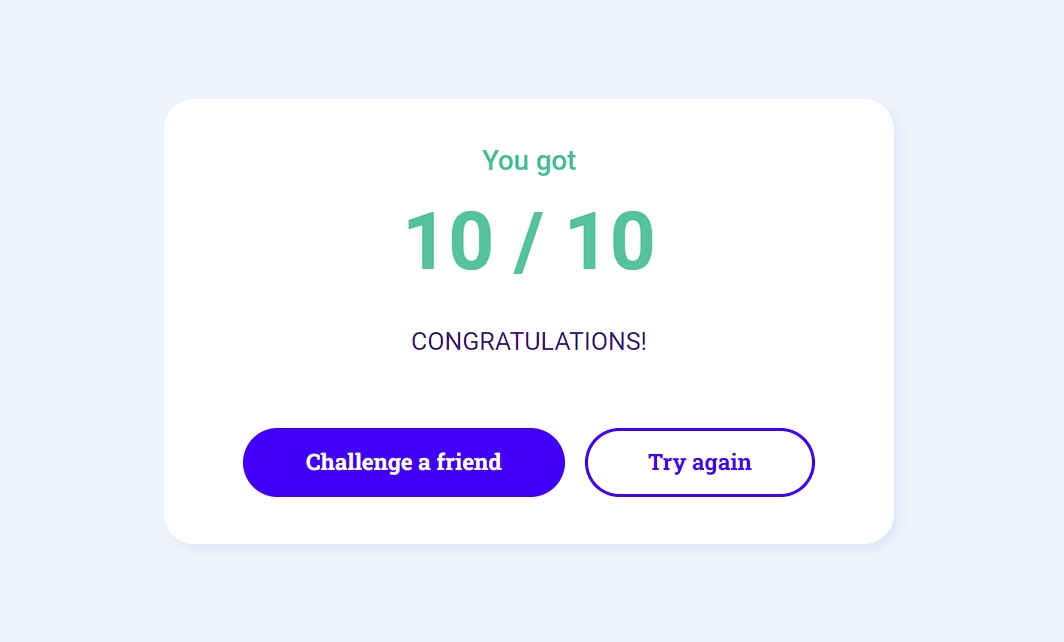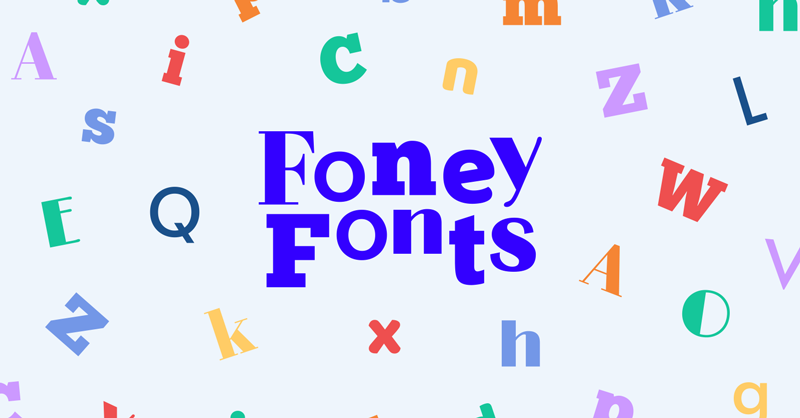
That’s a good game, but I’ve never heard of some of the products or brands. This left me with nothing but guesses as to which logos were correct.
I did notice some of the incorrect choices used better typography than the real ones, which made me smile. ![]()
My best was 7 of 10 so far. But, there are a lot I have no idea what they are in the first place lol … sort of hard to do anything but guess in that case ![]()
There were a couple of companies that I was not familiar with. In those cases, I guessed the better of the two type choices.
Is such a fun game - there’s some cases when the incorrect type actually looks better than the original.
Incredible
Oh, wow, some were tricky! Solid 9/10 though ![]()
sadly the game is gone ![]()